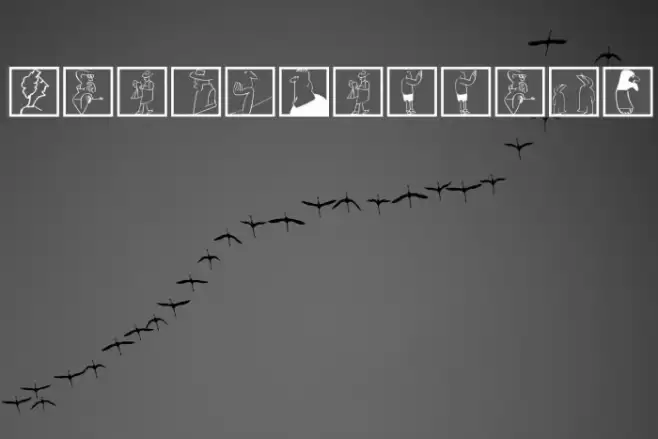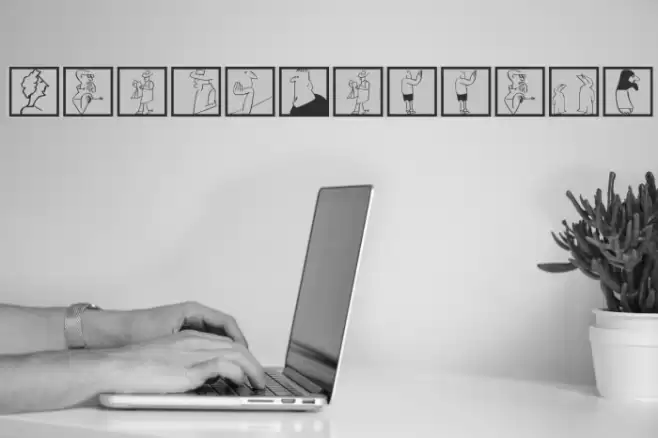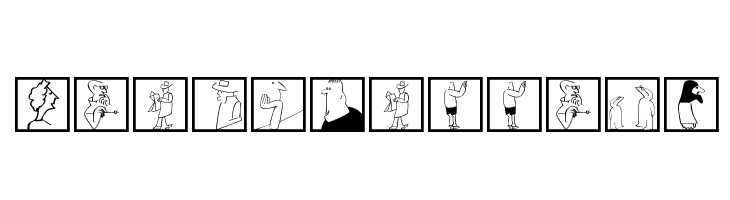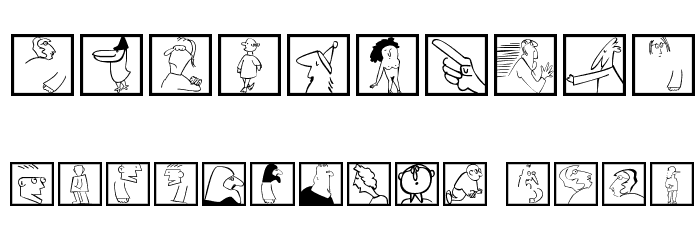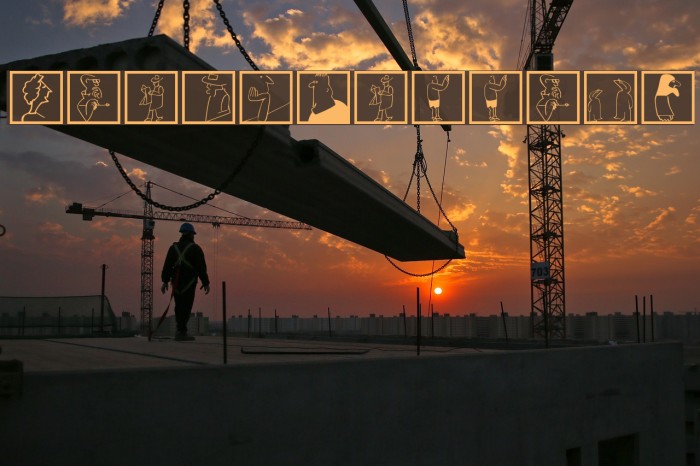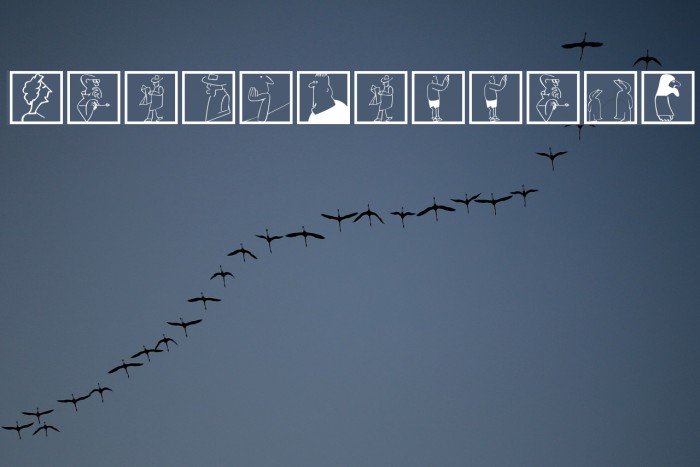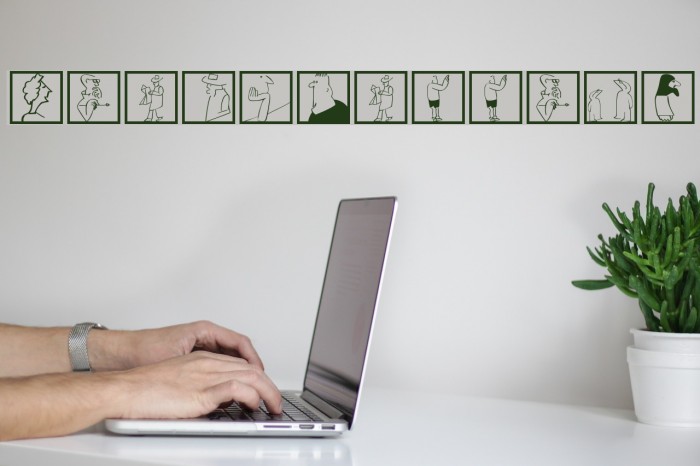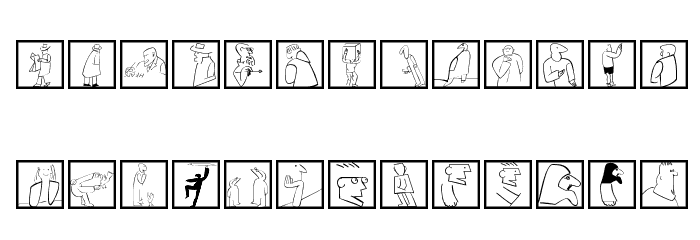
HeadsGallery Font
HeadsGallery Description
A playful, illustrative typeface composed of hand-drawn cartoon heads and figures, each character represented by a unique sketch within a square frame, giving a whimsical and artistic feel.
Hand-drawn cartoon heads and figures in a playful, illustrative style from Uncategorized fonts.
- Proposed Projects: Children’s books, comics, creative posters, educational materials, playful branding, art projects.
- Overall Style: Whimsical, Artistic, Playful
- Use Case: Logos, Posters, Creative Titles, Children’s Materials